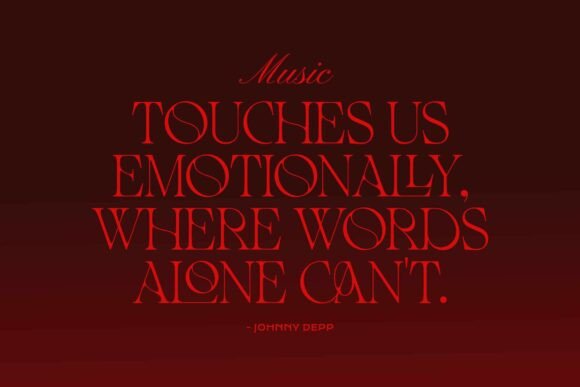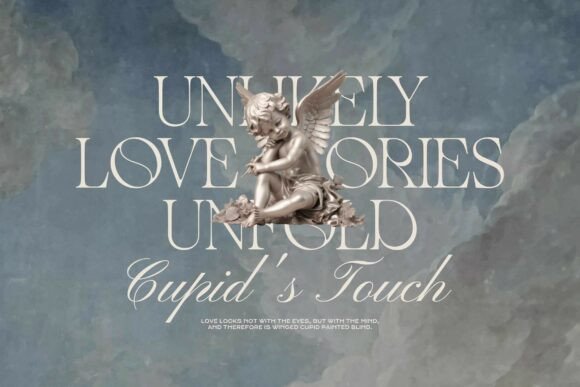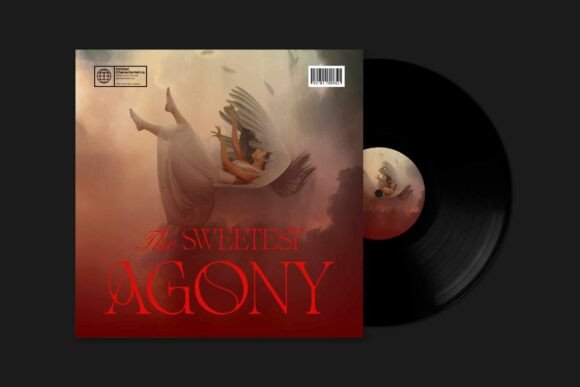
Introduction to Mollen Fancyla Font
Mollen Fancyla is an aesthetic serif font that seamlessly blends beauty and a feminine touch, infusing a sense of class and contemporary sophistication.
Its graceful lines and modern aesthetic make it the perfect choice for projects seeking a balance of elegance and modernity .